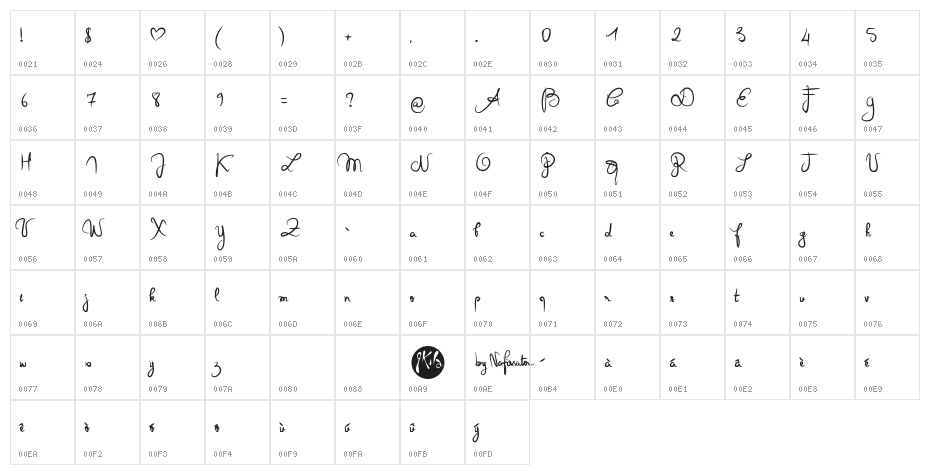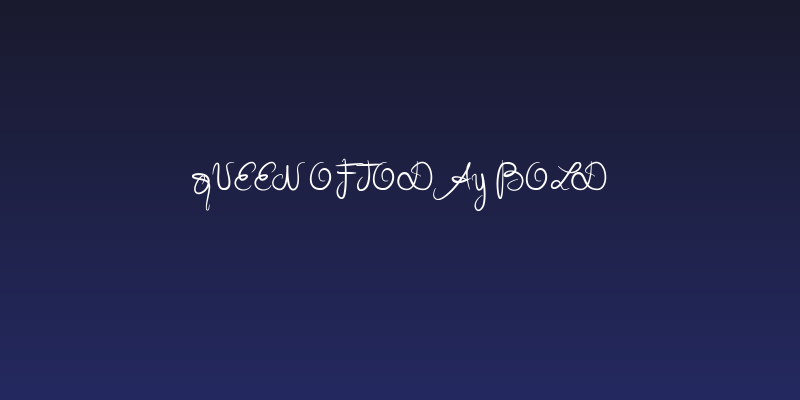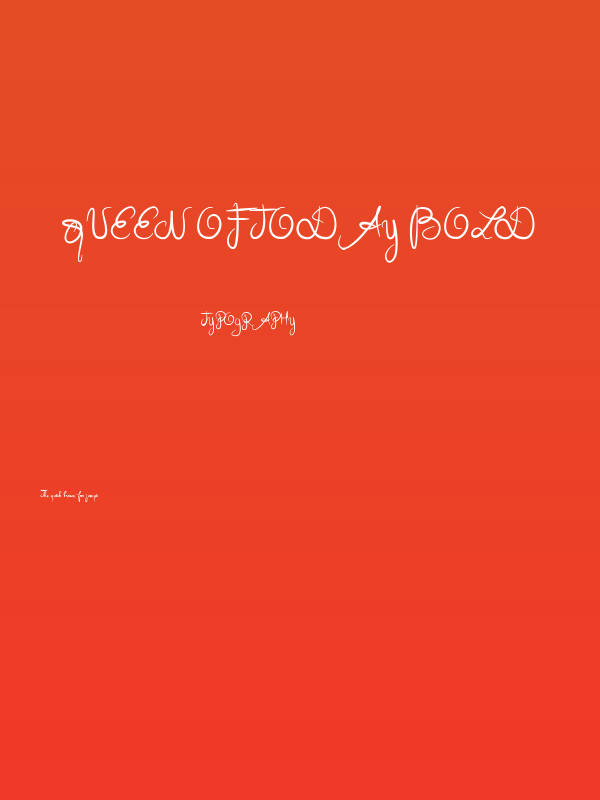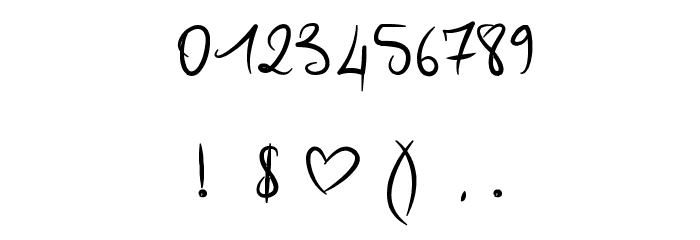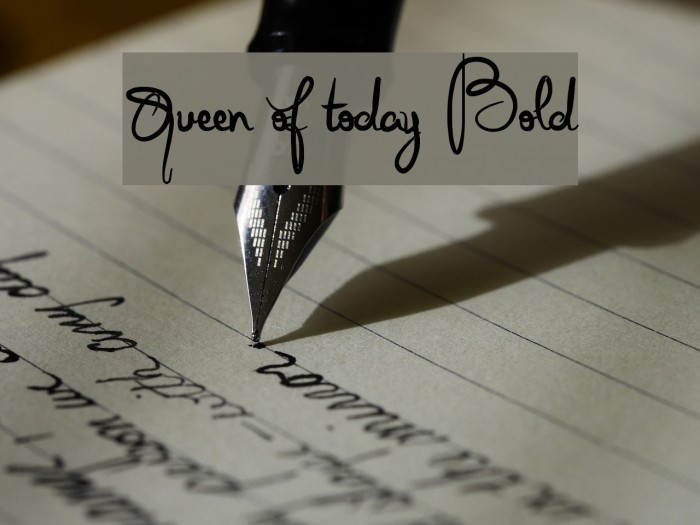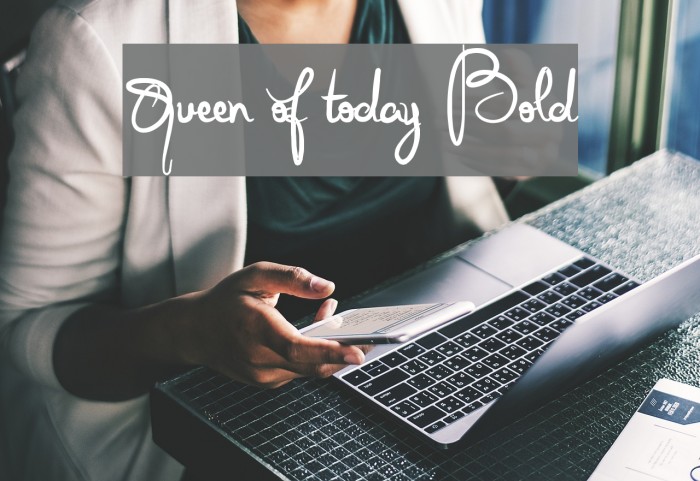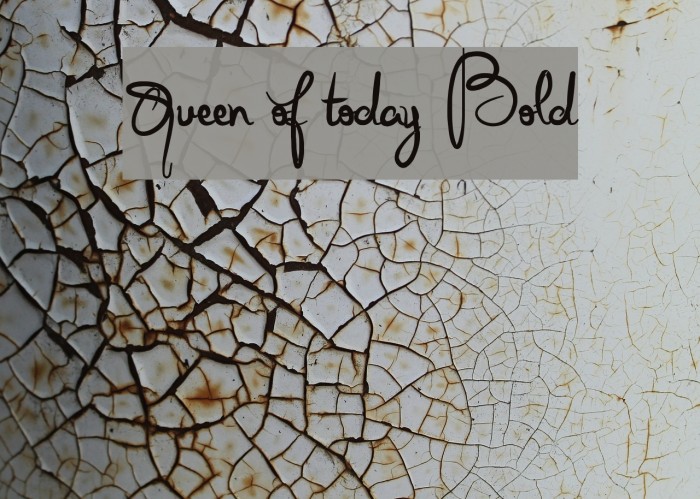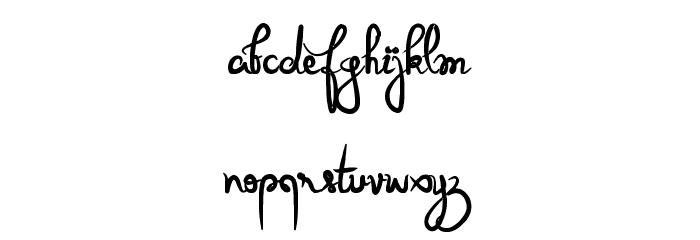
Queen of today Bold Font
Queen of today Bold Description
This font exhibits a unique and artistic flair, characterized by its flowing, cursive style that mimics elegant handwriting. The uppercase letters are bold and expressive, with intricate loops and swirls that add a touch of sophistication. The lowercase letters maintain a consistent style, with a slightly more restrained design that complements the uppercase. Numbers are clear and legible, yet retain the font's distinctive style. Special characters are creatively designed, adding to the overall artistic feel. This font is perfect for projects that require a personal, handcrafted touch.
| Use Case | Logos, Invitations, Artistic projects |
| Proposed Projects | Ideal for wedding invitations, greeting cards, personal branding, and artistic projects. |